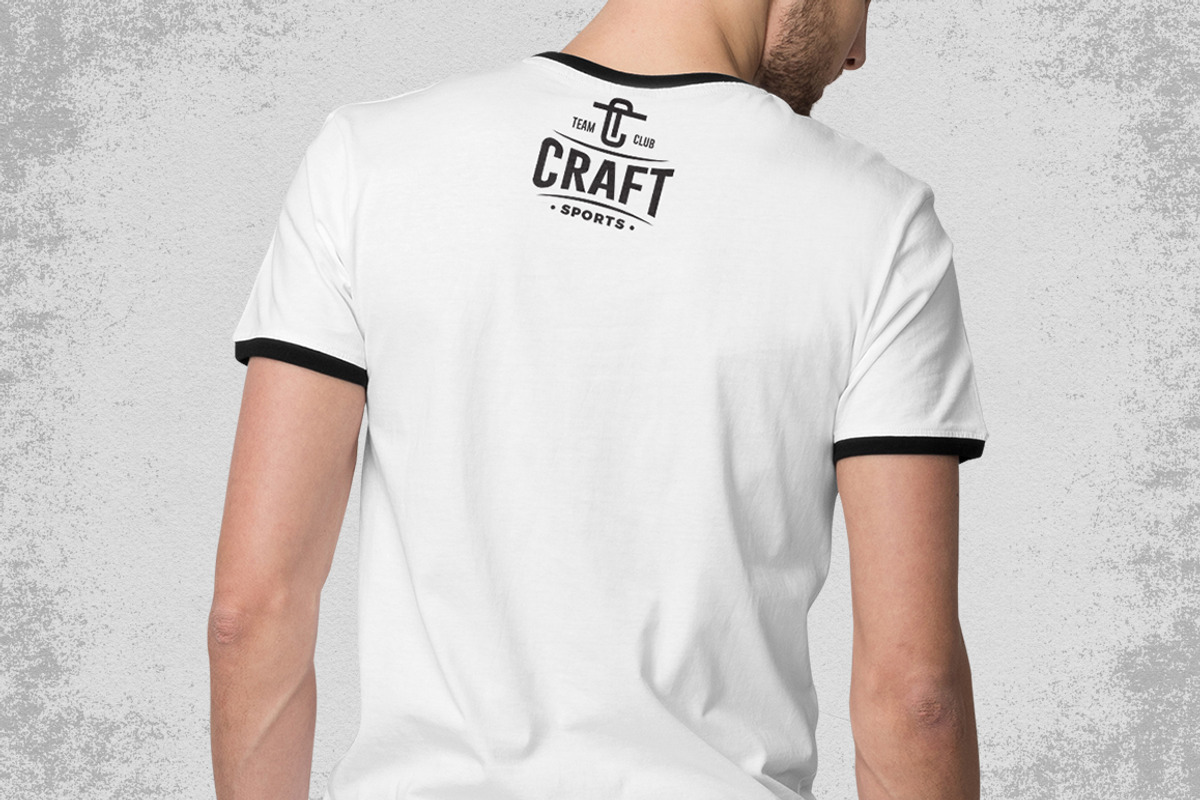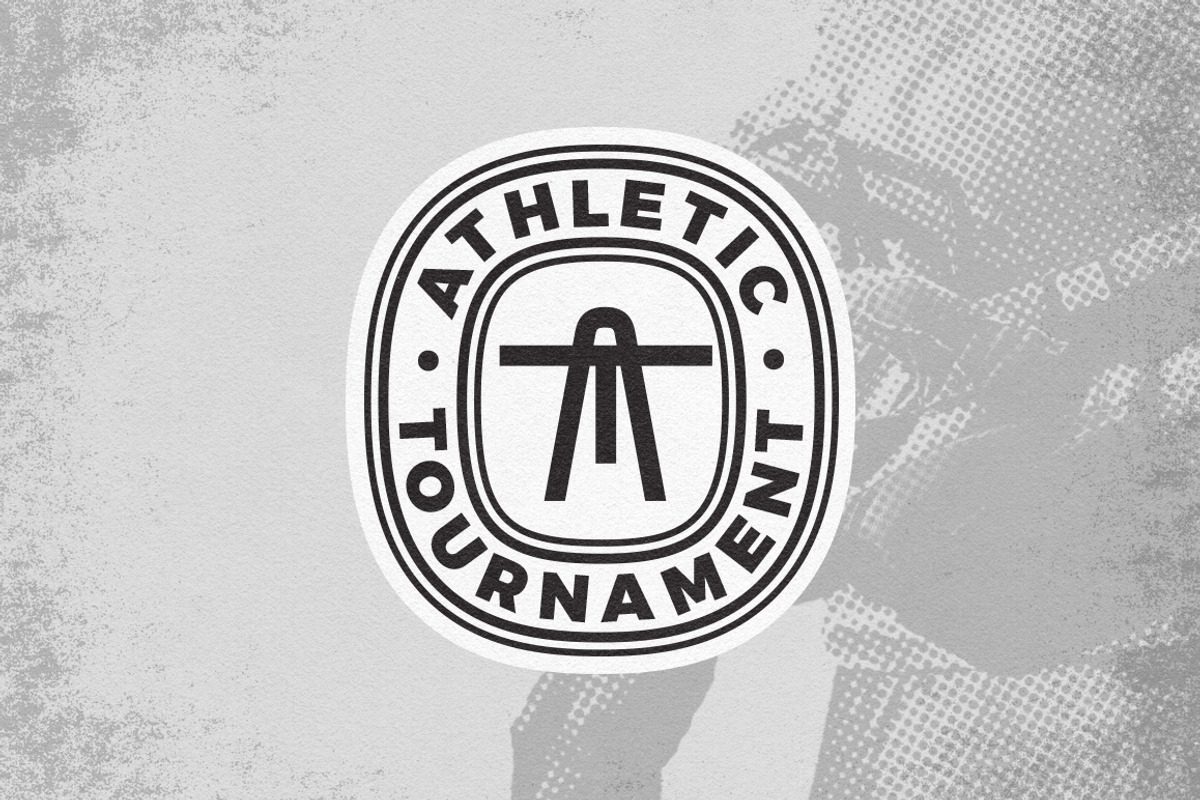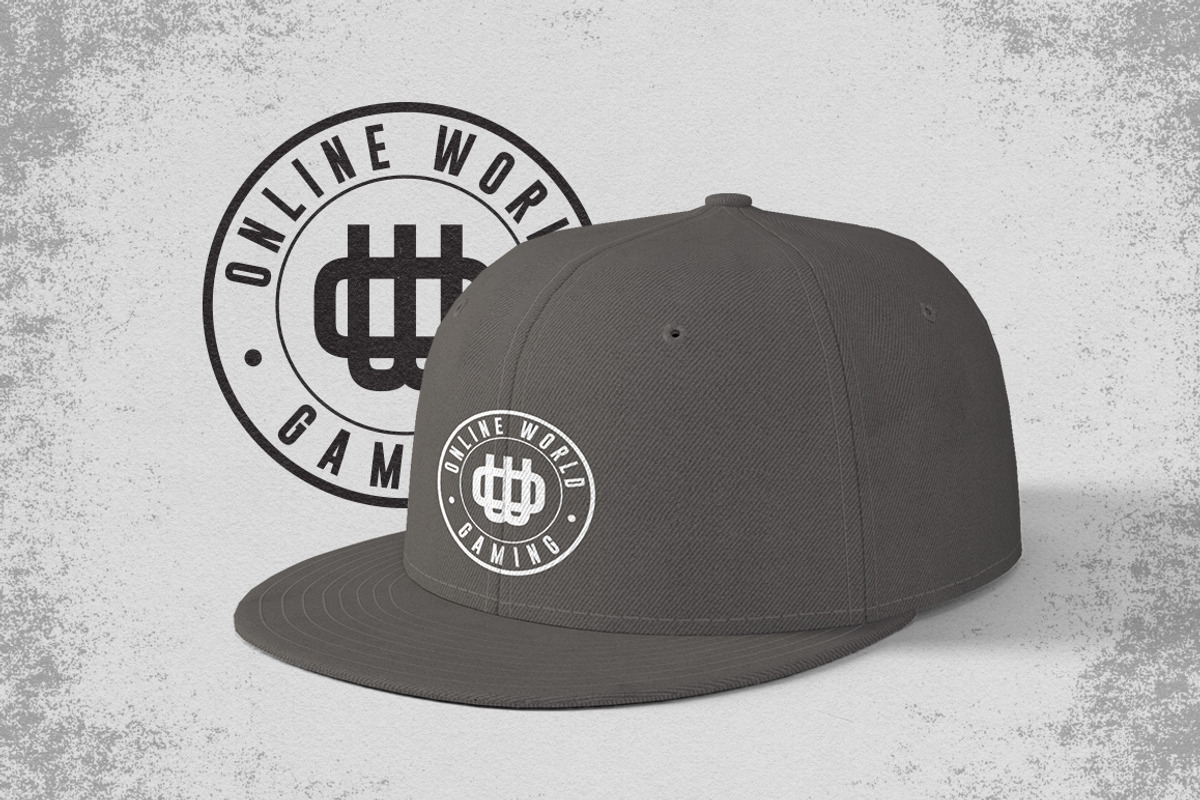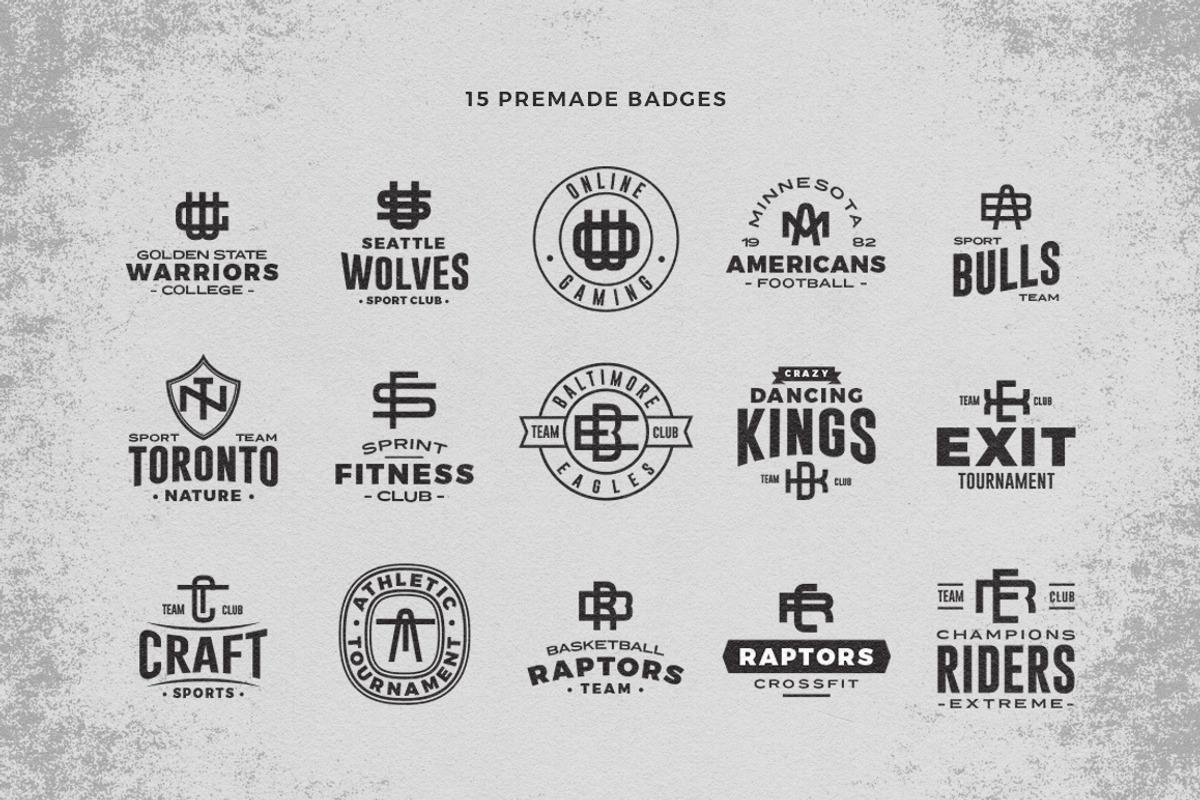
Monogram World Sport
MONOGRAM WORLD SPORT is a sans serif font specially designed for creating stunning monograms in no time. Monogram World Sport includes three weights, Light, Regular and Bold, with uppercase and lower uppercase characters. This font has endless combinations. Each letter was designed to perfectly combine with the others easily and with great results. The uppercase letters are tall and narrow, while the lower uppercase letters are wider and short bodied. For a successful monogram you simply have to choose an uppercase letter and a lower uppercase letter, place them on top of each other, adjust them to have the same center, and you will get an original monogram. Furthermore, for even more variations you can choose the weight you prefer, from thin lines to a more consistent stroke thickness. Combining the font letters you will have 600+ monograms. Additionally, included in this package you will find a bonus of 15 premade badges. Monogram World Sport font was inspired by the sports branding industry, but it is just as good for any other modern projects, from badges to clothing design, just let your creativity break free!
- Upper and lower uppercase font